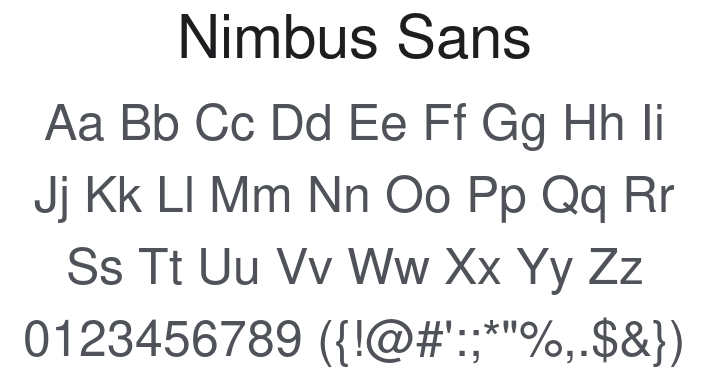
Nimbus Sans Font Family
by URW++
About Nimbus Sans
Nimbus Sans is a grotesque sans-serif typeface from URW++ and part of the URW Base35 open-source font package, a set of 35 fonts metrically compatible with the PostScript Level 2 core font set. Targeting Helvetica, one of the most widely used typefaces in history, Nimbus Sans delivers the same clean, neutral, and highly versatile letterforms suited to branding, signage, corporate communications, and user interface design.